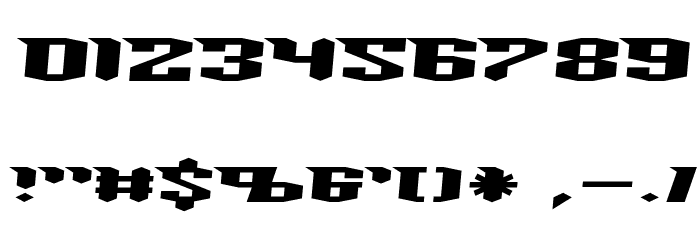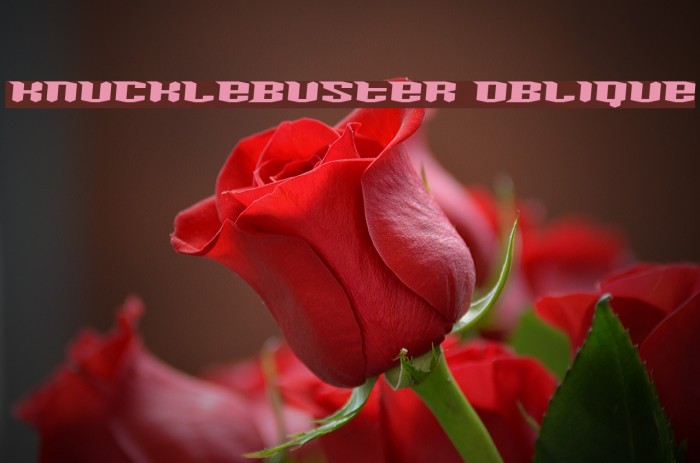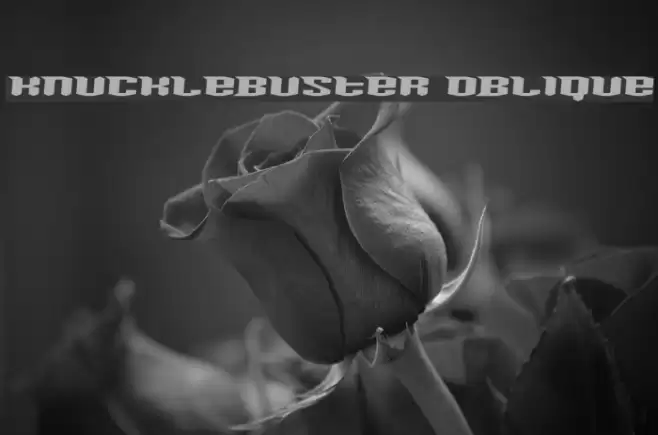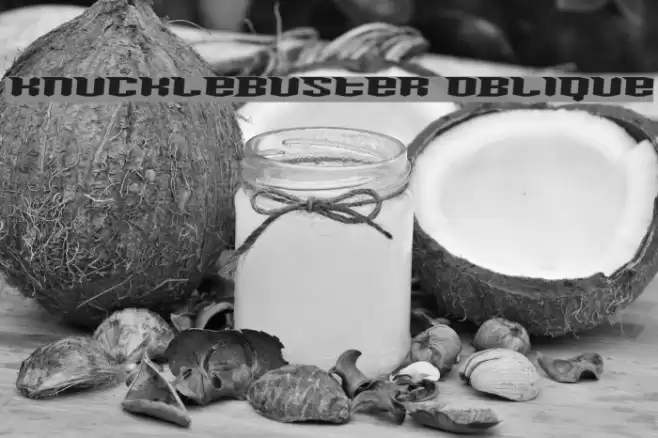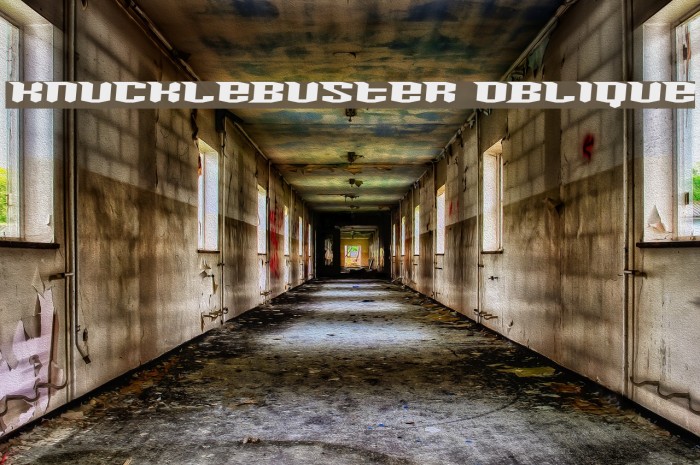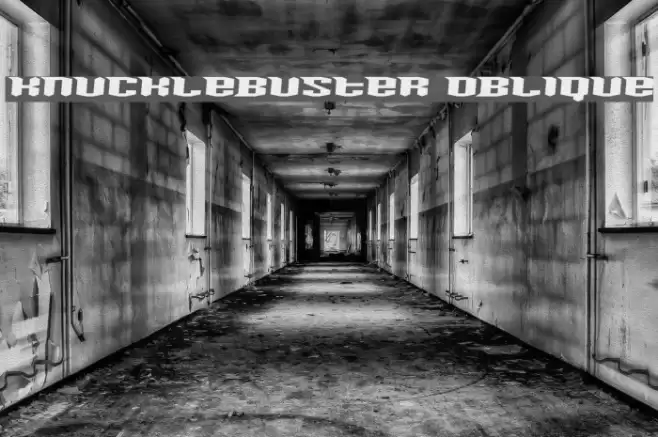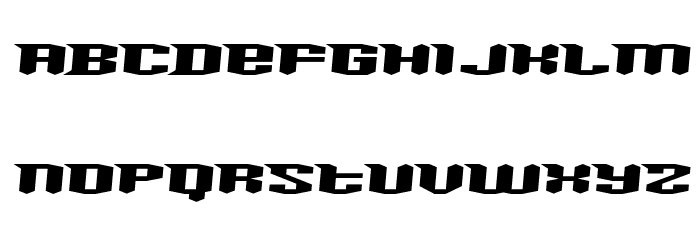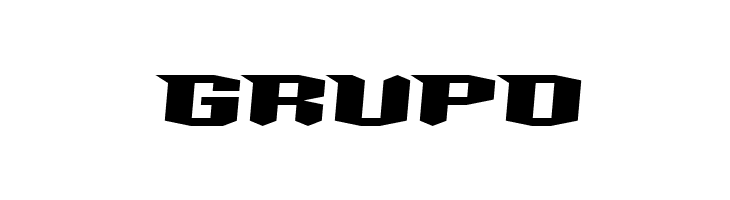
Knucklebuster Oblique Font
Knucklebuster Oblique Description
This font features a bold and dynamic design with a strong presence. The characters are sharply angled and have a distinct oblique slant, giving them a sense of motion and energy. The strokes are thick and consistent, creating a robust and impactful appearance. The overall style is reminiscent of industrial or mechanical themes, with a modern twist. The uppercase and lowercase letters maintain a uniform style, while the numerals and special characters complement the bold aesthetic. This font is ideal for projects that require a strong visual impact and a contemporary feel.
| Overall Style | Modern, Industrial |
| Proposed Projects | Ideal for branding, posters, sports team logos, and any project needing a bold, energetic typeface. |